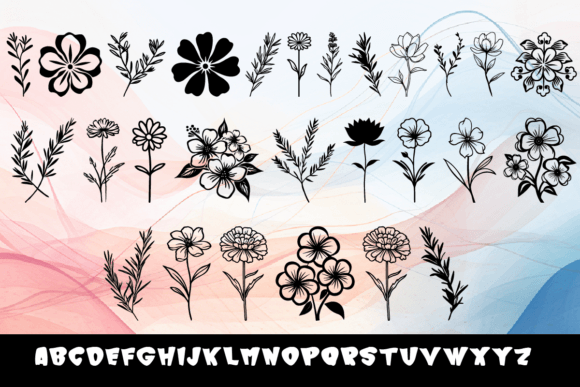
Add a Burst of Fun to Your Designs with Crazy Flowers Dingbats Fonts!
Are you tired of using the same old boring fonts in your designs? Do you want to add a touch of whimsy and playfulness to your projects? Look no further than Crazy Flowers Dingbats Fonts! This vibrant digital product features 26 unique and whimsical floral symbols, from A-Z, that are sure to bring a lively and energetic charm to any design.
What are Dingbats Fonts?
For those who may be new to the world of digital design, dingbats fonts are a type of font that features symbols and graphics instead of traditional letters and numbers. They are often used to add a decorative touch to designs and can be used to convey a specific message or theme. In the case of Crazy Flowers Dingbats Fonts, the symbols are all floral-themed, making them perfect for spring-inspired designs, garden-themed projects, and more.
What Makes Crazy Flowers Dingbats Fonts So Special?
Crazy Flowers Dingbats Fonts are truly one-of-a-kind. Each of the 26 symbols is carefully crafted to be unique and whimsical, featuring a range of colorful flowers, leaves, and other botanical elements. From A to Z, each symbol is designed to be eye-catching and fun, making them perfect for adding a playful touch to any design.
How Can I Use Crazy Flowers Dingbats Fonts?
The versatility of Crazy Flowers Dingbats Fonts is one of their best features. These dingbats can be used in a wide range of design projects, including:
- Digital invitations and party decorations
- Crafting projects, such as card-making and scrapbooking
Whether you’re a professional designer or a crafty hobbyist, Crazy Flowers Dingbats Fonts are easy to use and can be incorporated into your designs in just a few clicks.
Benefits of Using Crazy Flowers Dingbats Fonts
So why should you choose Crazy Flowers Dingbats Fonts for your next design project? Here are just a few benefits:
- Unique and eye-catching designs: Crazy Flowers Dingbats Fonts feature truly one-of-a-kind symbols that are sure to grab attention.
- Versatile: These dingbats can be used in a wide range of design projects, from digital graphics to crafting projects.
- Time-saving: With 26 unique symbols to choose from, you’re sure to find the perfect design element to complete your project.
Tips and Tricks for Using Crazy Flowers Dingbats Fonts
Here are a few tips and tricks to help you get the most out of Crazy Flowers Dingbats Fonts:
- Experiment with different colors and combinations: Try pairing different symbols with different colors and backgrounds to create unique and eye-catching designs.
- Use them in combination with other fonts: Crazy Flowers Dingbats Fonts can be used in combination with other fonts to add a playful touch to your designs.
- Don’t be afraid to get creative: With 26 unique symbols to choose from, don’t be afraid to think outside the box and come up with new and creative ways to use Crazy Flowers Dingbats Fonts.